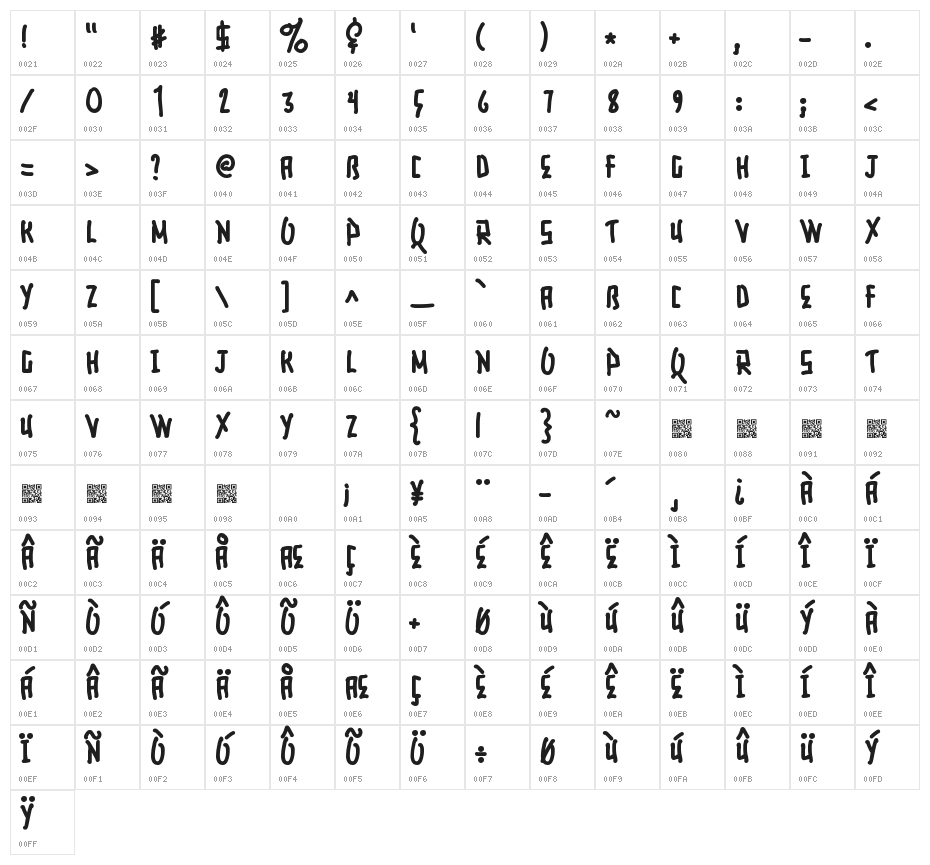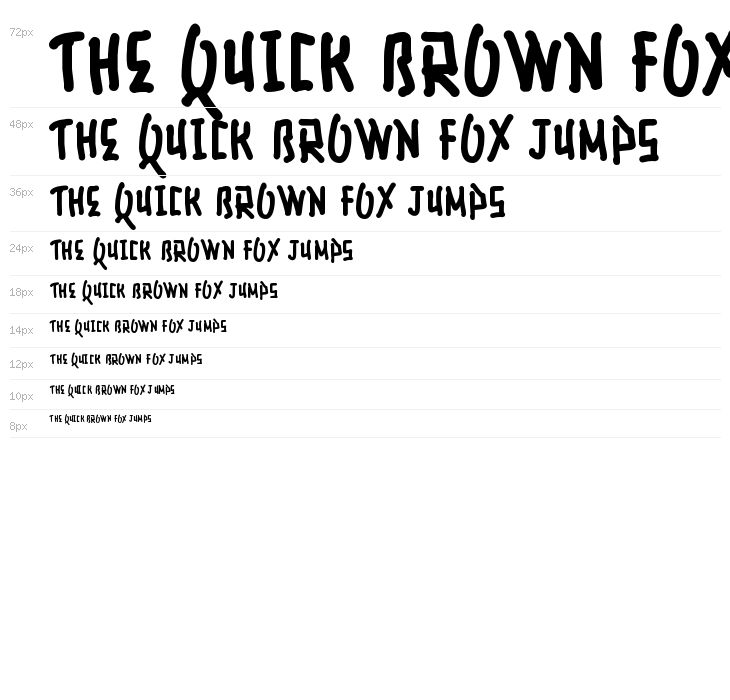
Elusive Font
Elusive Description
This font exhibits a bold and playful style with a handwritten appearance. The characters are slightly irregular, giving it a casual and informal feel. The strokes are thick and consistent, providing a strong visual impact. The uppercase and lowercase letters maintain a cohesive look, while the numbers and special characters complement the overall design. This font is well-suited for creative projects that require a touch of personality and flair.
| Proposed Projects | Ideal for children's book covers, playful branding, casual invitations, and creative posters. |